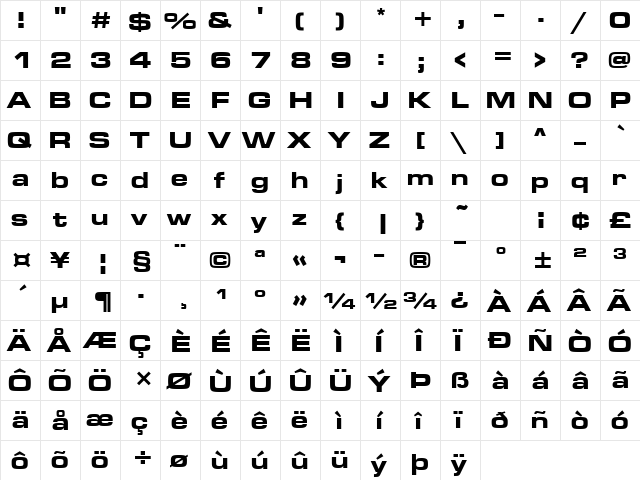
Microgramma Becker Bold Extd Regular
Design Context for Microgramma Becker Bold Extd Typeface
Microgramma Becker Bold Extd is a composed and adaptable typeface that performs quietly and consistently across a wide range of design contexts. Its bold stroke weight gives it real presence on the page.